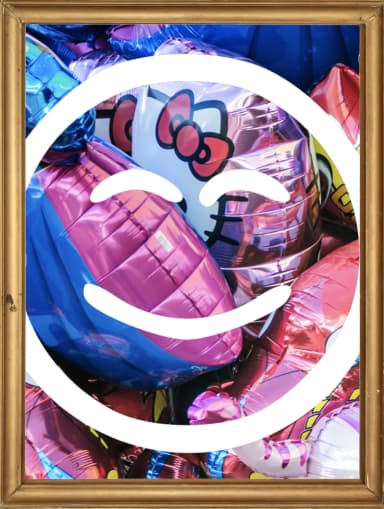
TypeFace is a dingbats collection built around expressive emotional characters, with each glyph carefully designed to convey genuine mood and personality. Created by GraphicsBam Fonts, this playful symbol font delivers smiling faces, sad expressions, surprised mouths, and dozens of other character variations that let you add authentic feeling to your work without reaching for clip art.
The character set includes uppercase and lowercase letters alongside numbers and a broad range of miscellaneous symbols, giving you real flexibility in how you layer or arrange individual elements. This breadth makes it surprisingly functional across different design contexts. Think greeting card suites where each emotion gets its own character, custom stickers for online sellers looking to stand out, labels for handmade goods that need personality, or DIY scrapbooking layouts where you want to show feeling, not just tell it. These characters communicate emotion and tone through symbol alone, which opens up design possibilities beyond traditional typography.